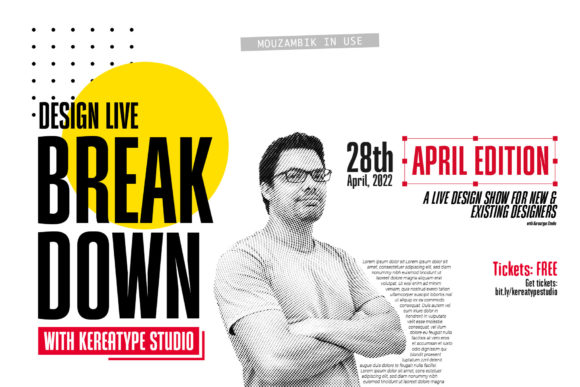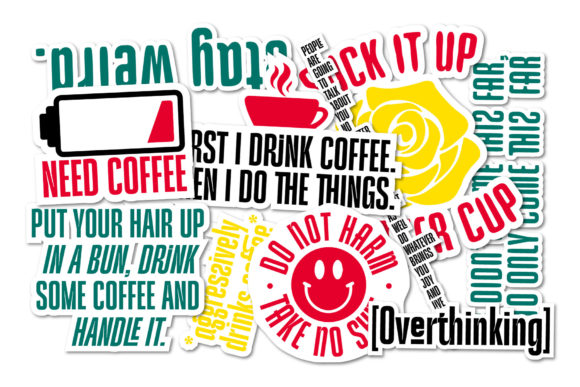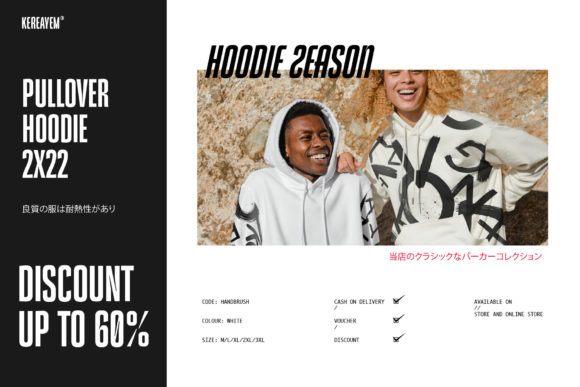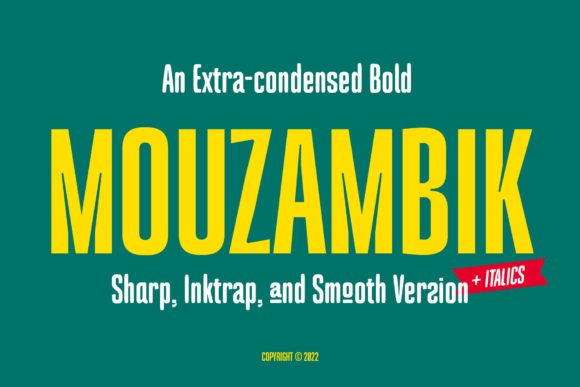
Introduction to Mouzambik Font
Mouzambik is a cool and neat display font.
It is perfect for headlines, billboards, magazines, websites, titles, posters, branding, and logos With tons of ligatures, alternates, and other features to choose from, you can make your project stand out from the rest.
Mouzambik Font offers exceptional quality and versatility, making it a valuable addition to your design toolkit. Whether you’re creating for personal projects or commercial use, Mouzambik Font delivers professional results.